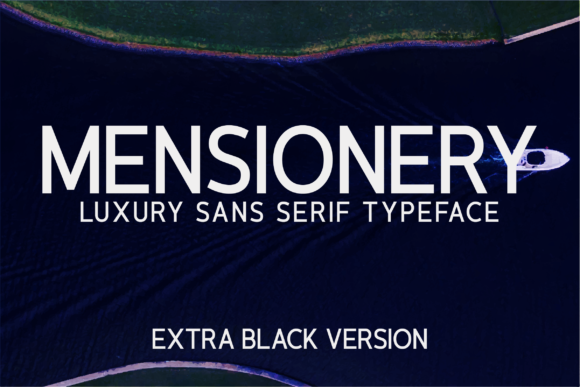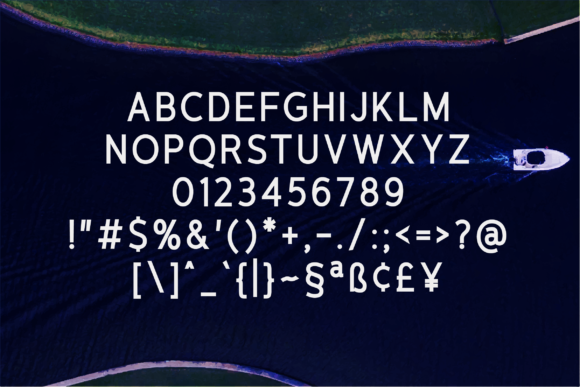
Mensionery Extra Black Font
About Mensionery Extra Black Font
Mensionery is a minimalistic, timeless, and stunning all caps sans serif font that looks beautiful in layouts, headers, web, and many other contexts. It comes in ten different weights!